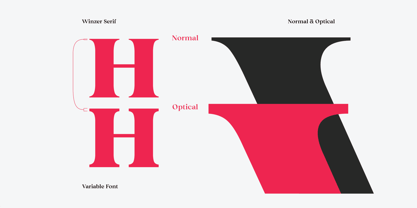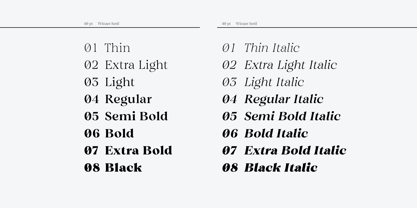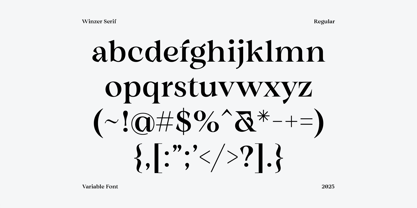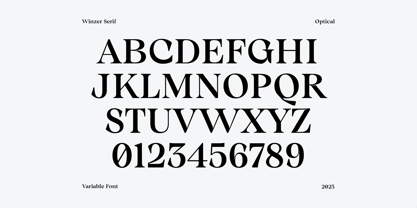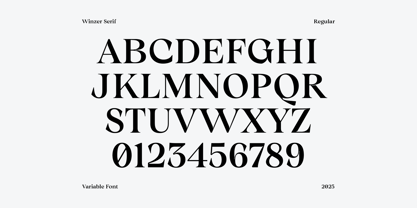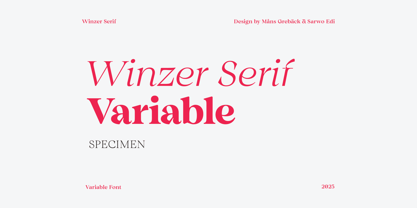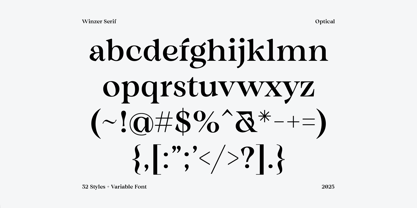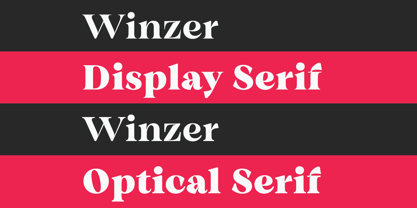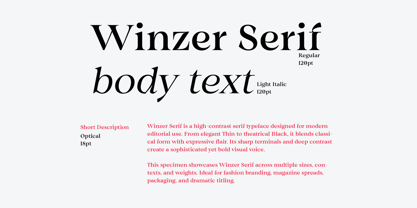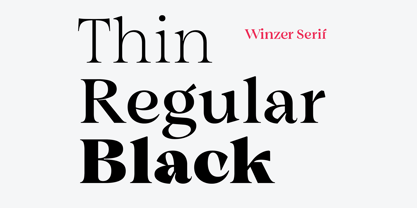
Winzer Serif Variable
Winzer Serif Variable is a high-contrast serif typeface that merges classical elegance with bold modernity. Designed for display and editorial purposes, it draws inspiration from transitional forms but adds a strong personal character through sculptural details and expressive tension.
The family spans a wide typographic spectrum, from the delicate Thin to the imposing Black, with each weight capturing a distinct tone—from whispering refinement to dramatic presence. Sharp terminals, deep vertical contrast and sweeping curves create a voice that’s both poised and powerful.
The Optical styles enhance legibility in smaller sizes, with adjusted proportions and softened transitions. Meanwhile, the Italic and Slanted styles introduce dynamism and rhythm, leaning the message forward without compromising the serif's structural grace.
Winzer Serif Variable is equally at home in glossy fashion spreads, book covers, and striking titles, where aesthetic sophistication is key.
The font is built with advanced OpenType functionality and guaranteed top-notch quality, containing stylistic alternates, ligatures and more automatic and manual features; all to give you full control and customizability.
It has extensive lingual support, covering all Latin-based languages, from North Europa to South Africa, from America to South-East Asia. It contains all characters and symbols you'll ever need, including all punctuation and numbers.
Designed by Mans Greback in collaboration with Sarwo Edi, Winzer Serif Variable reflects craftsmanship and versatility at every level. Its 32 carefully constructed styles, along with a variable font, offer maximum flexibility across any format or platform.